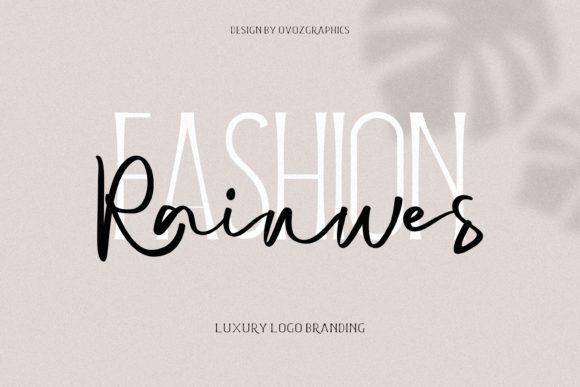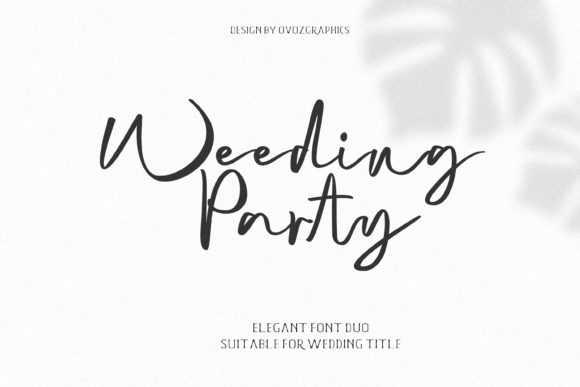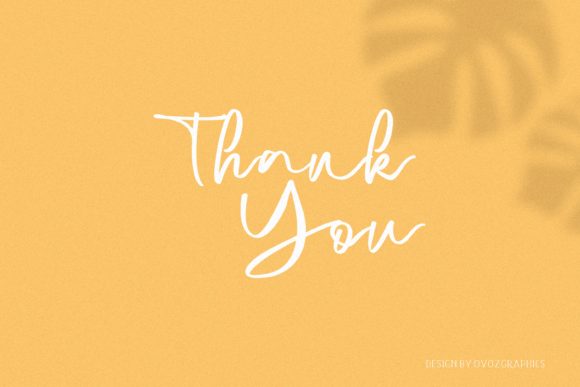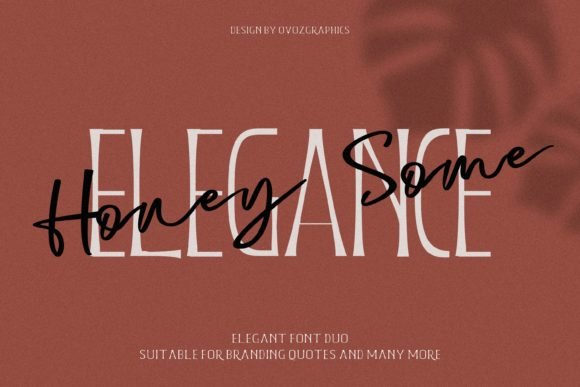
Honeysome Duo Font: Free Download Now
Introduction to Honeysome Duo Font
Honeysome is an incredibly modern and light font duo.
It combines an authentic script and an elegant sans serif font into a one-of-a-kind package .
Honeysome Duo Font offers exceptional quality and versatility, making it a valuable addition to your design toolkit. Whether you’re creating for personal projects or commercial use, Honeysome Duo Font delivers professional results.